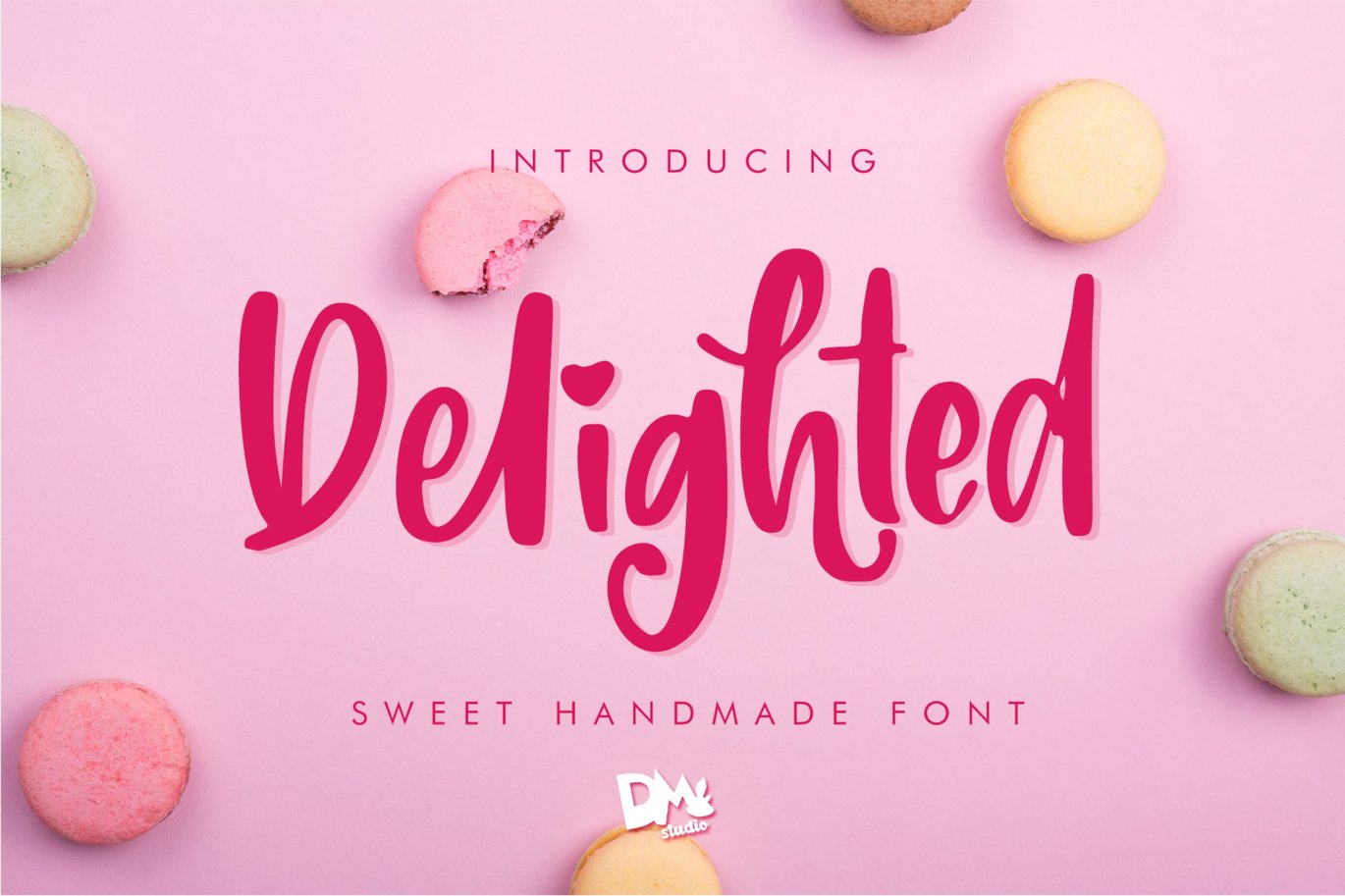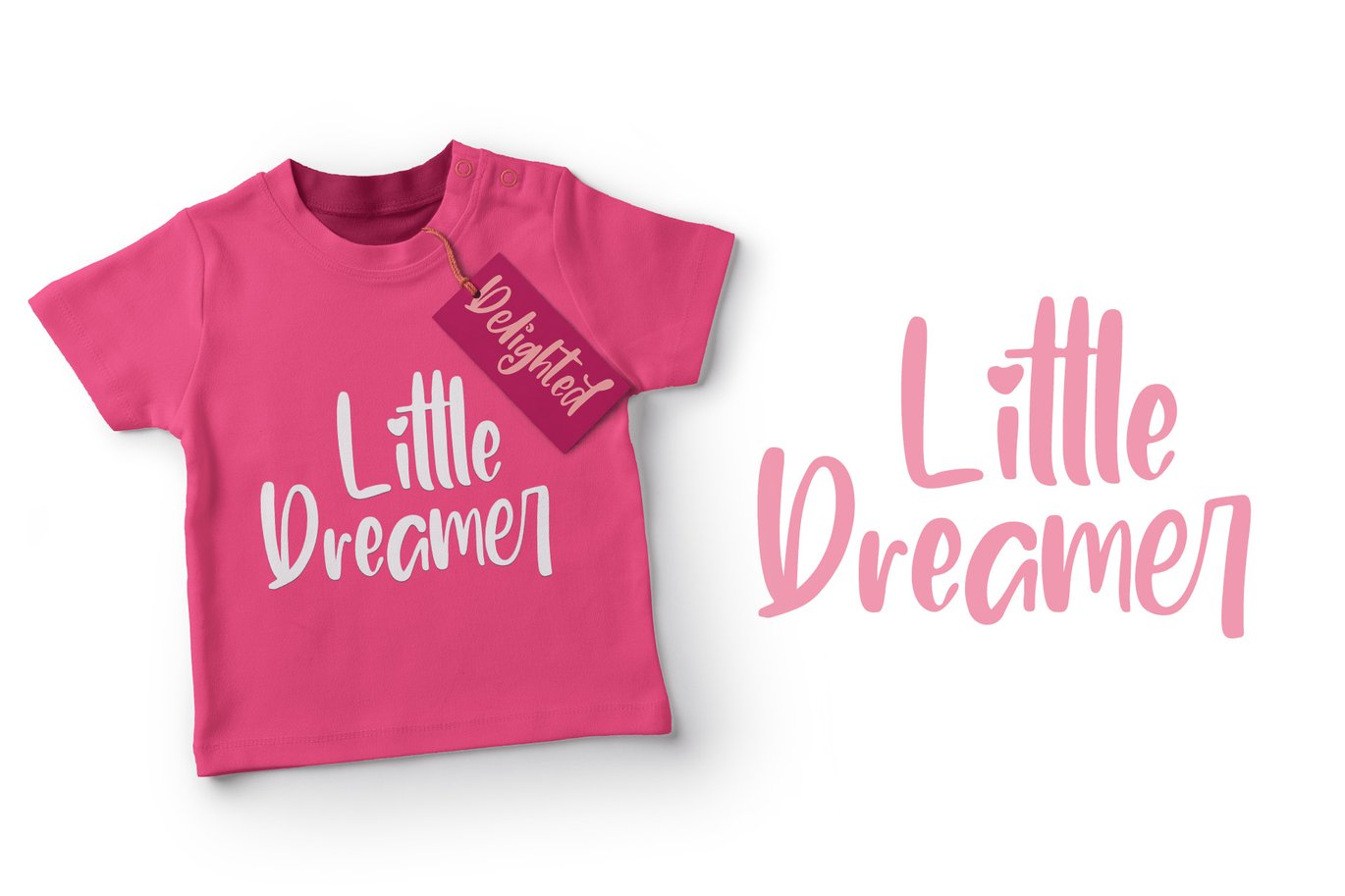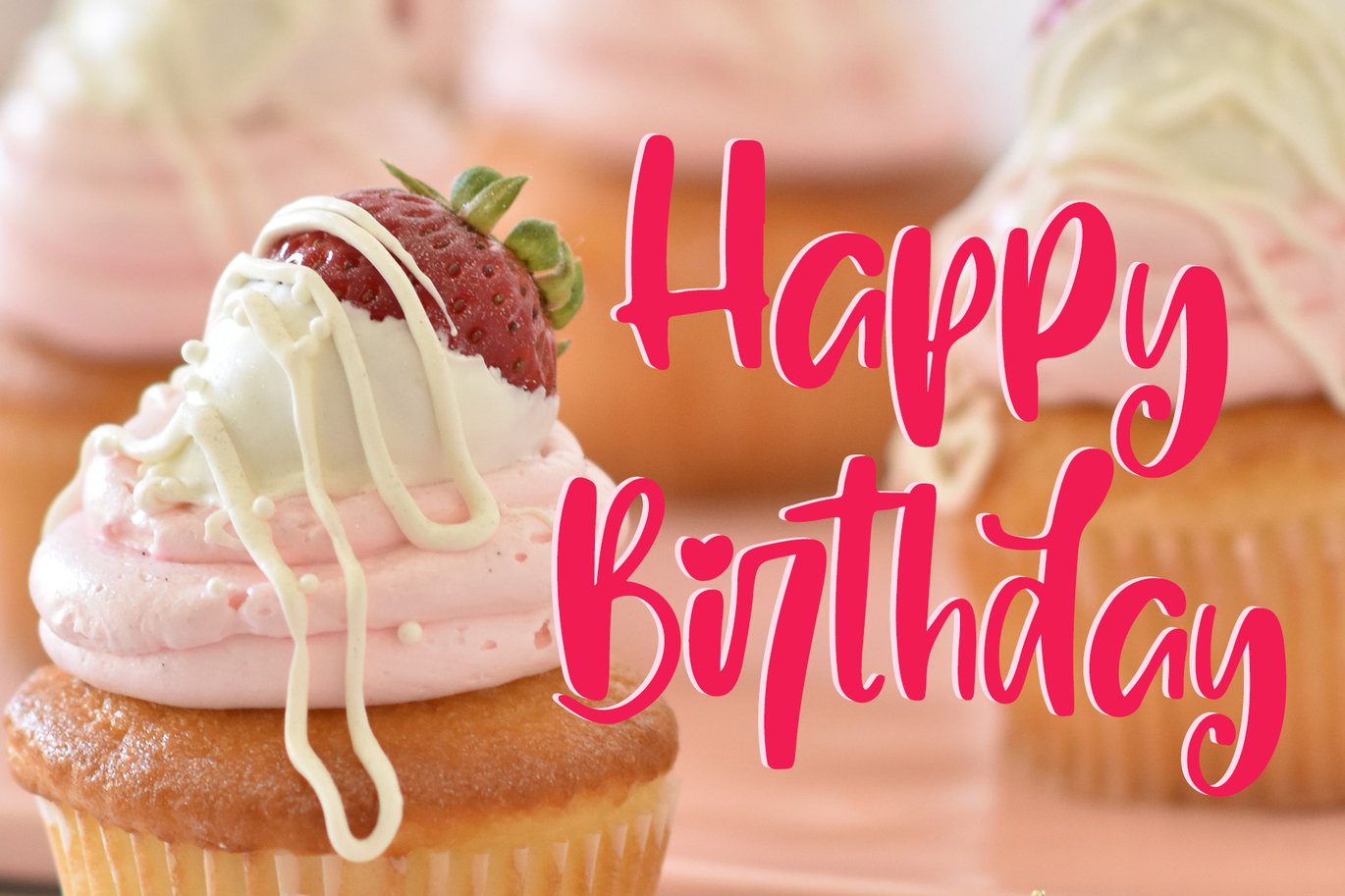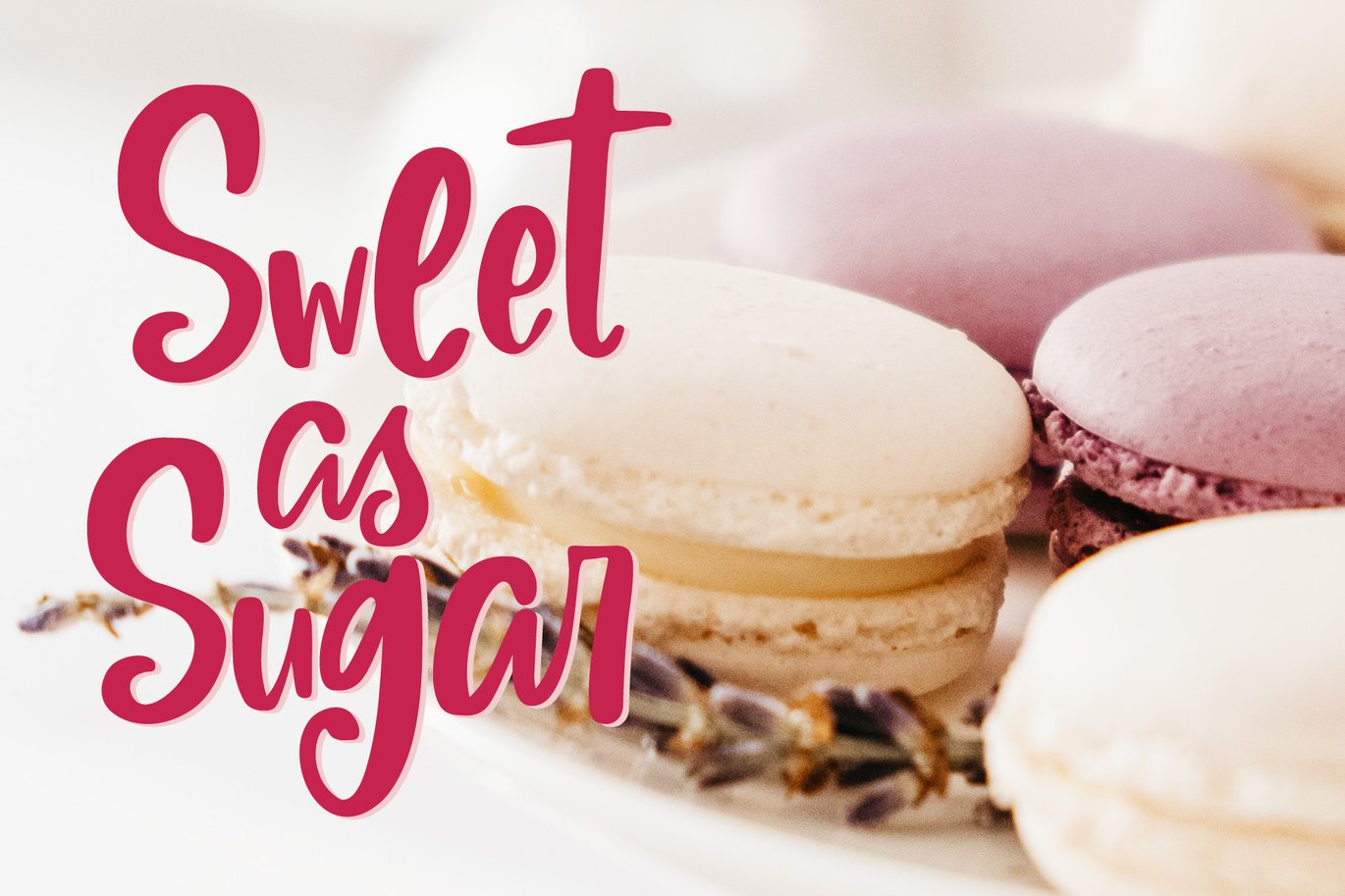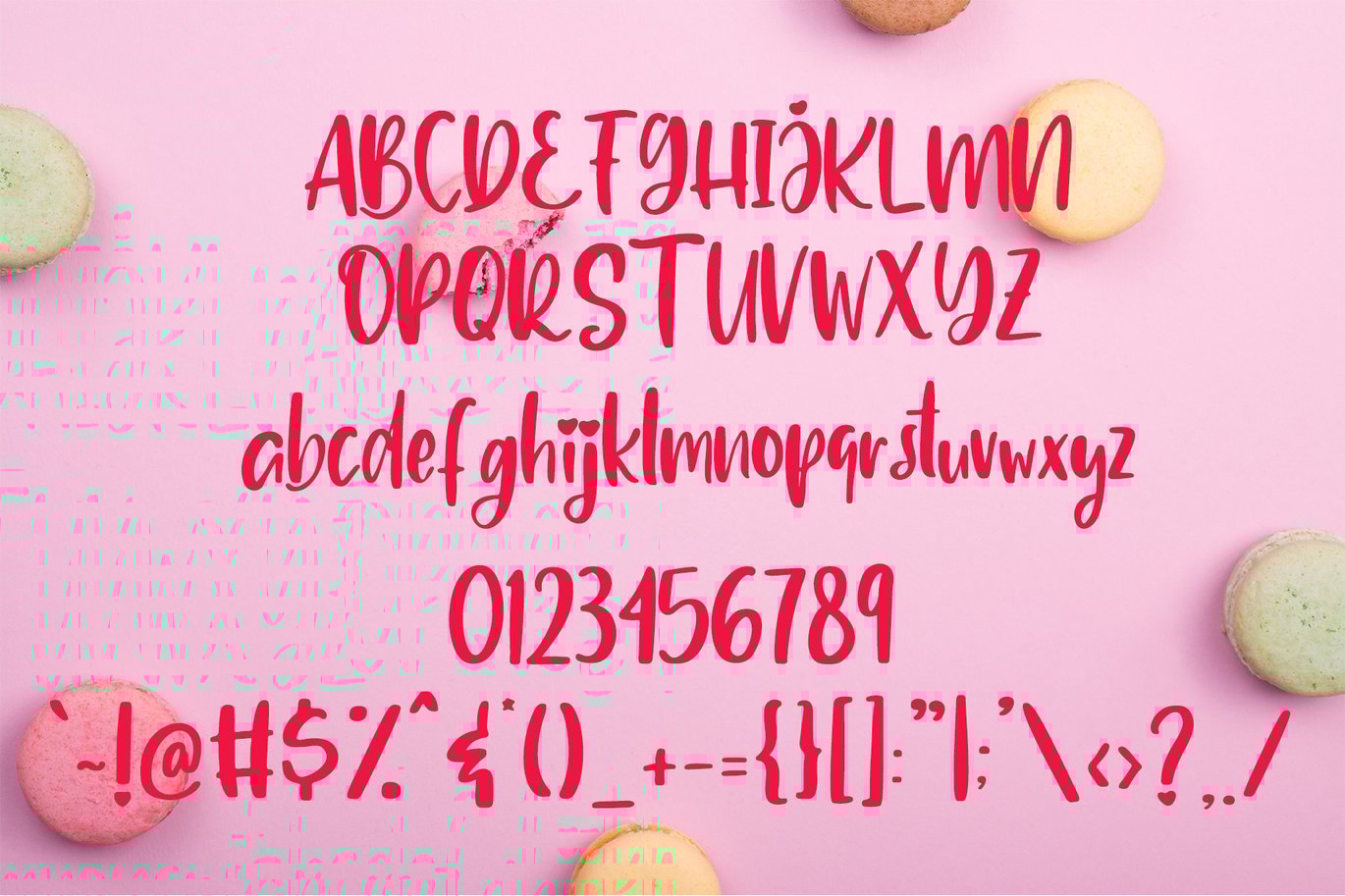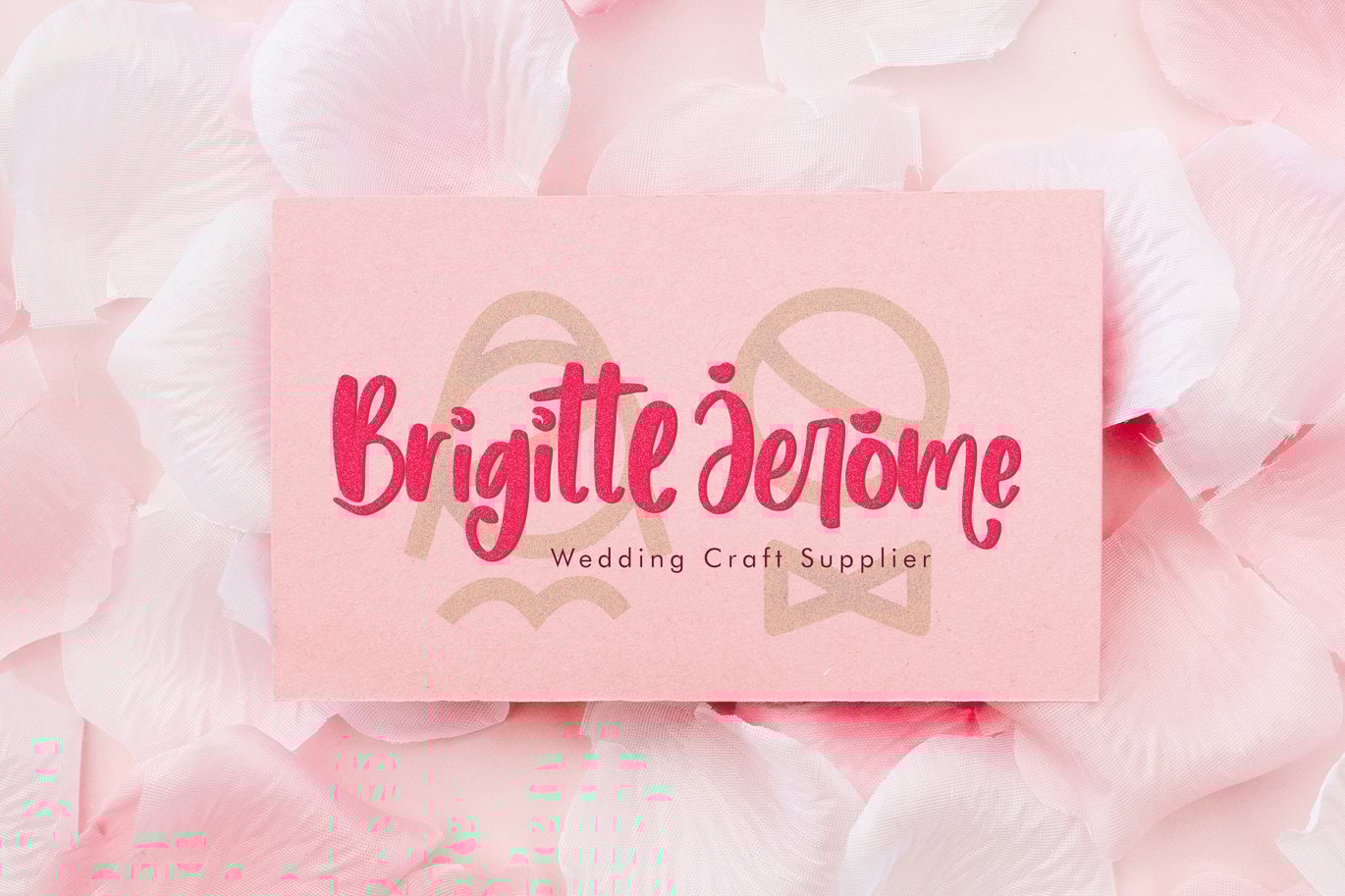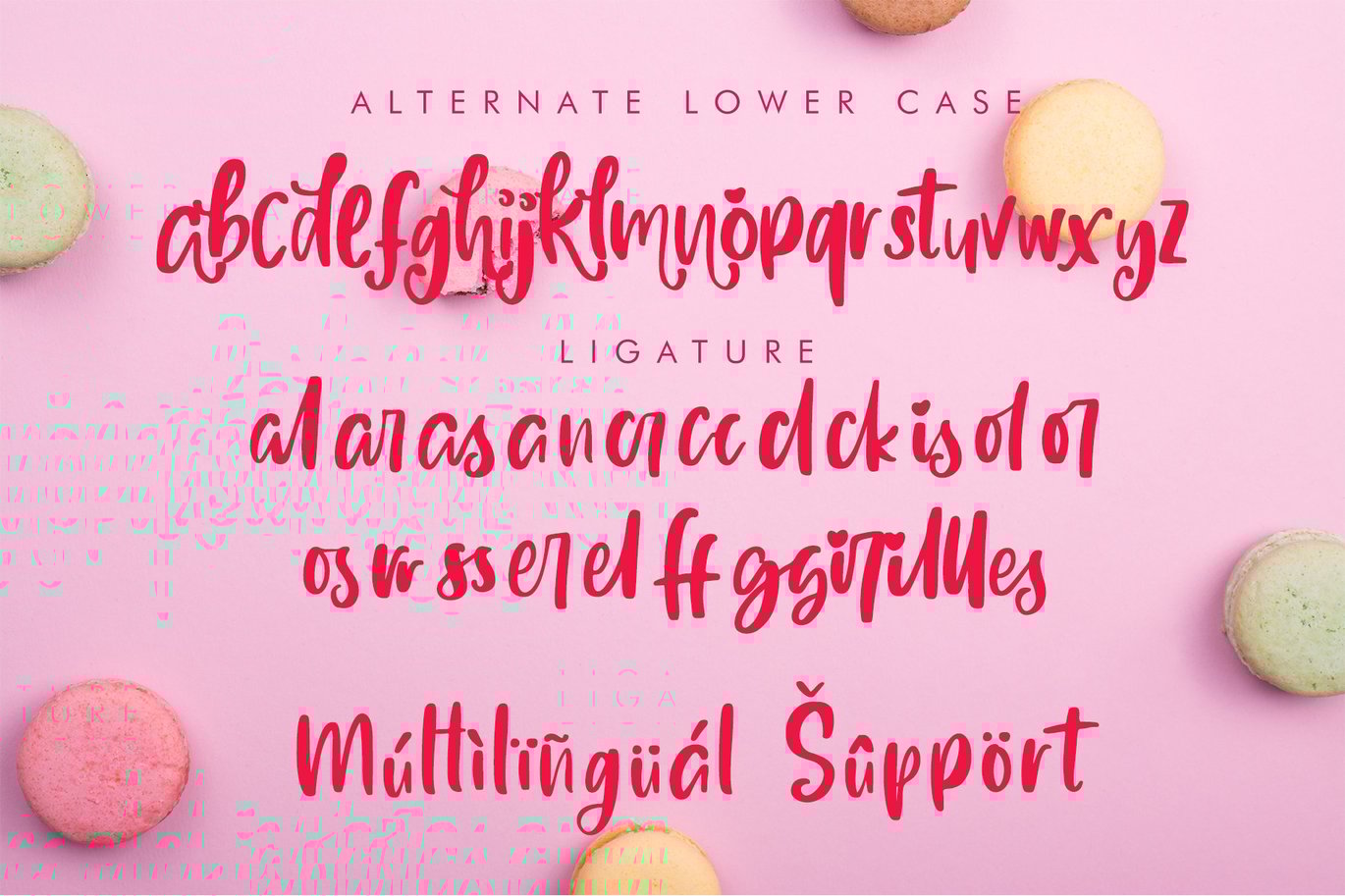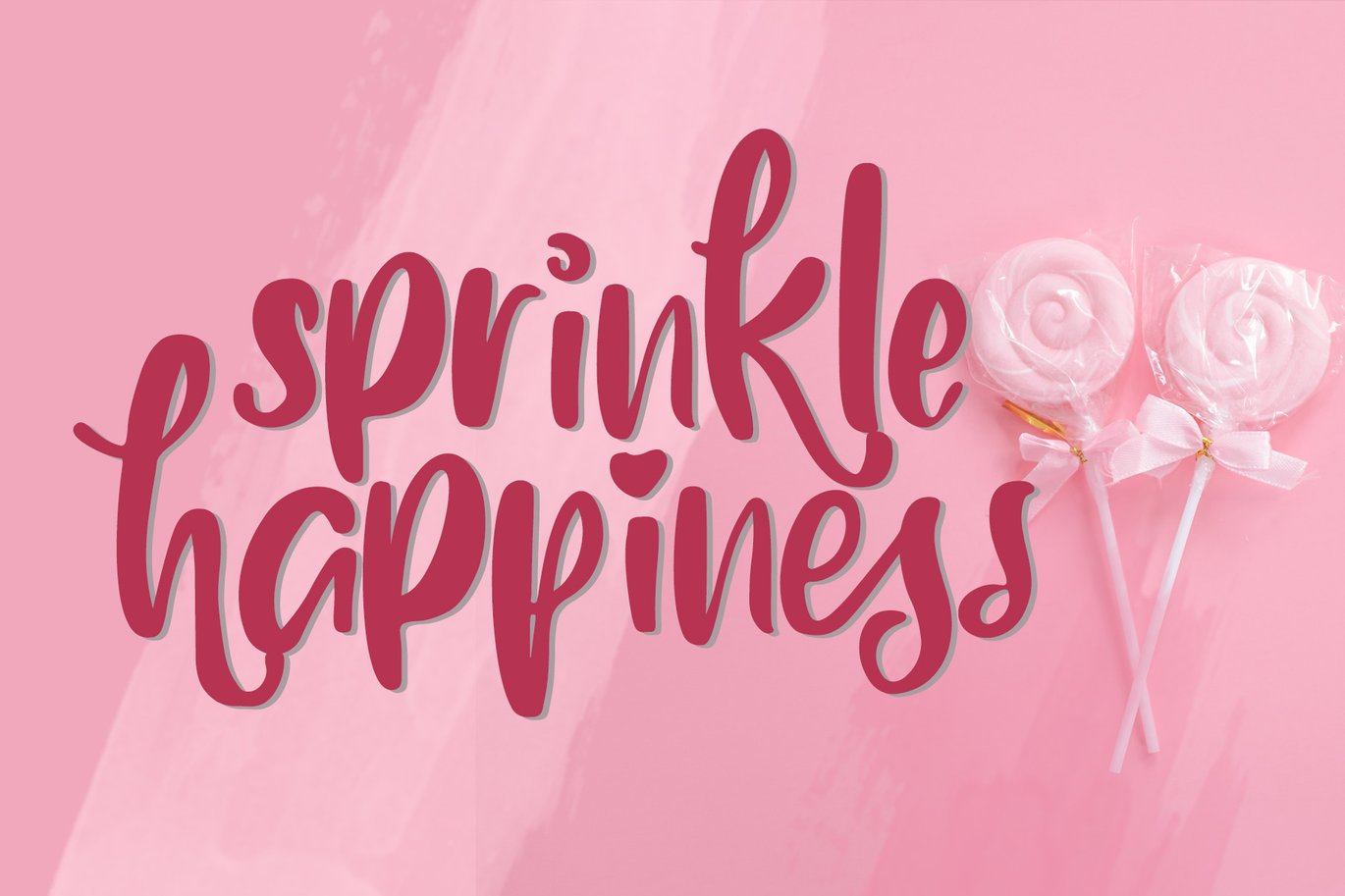
Delighted Sweet Handmade Font
Delighted – A Sweet Handmade Font
Introducing, the new handwritten series from us! It’s basically a
brush script font with a quirky but cute style!
Great for you who loves
making some crafting, like a birthday card, scrapbook, handlettered
quotes, stickers, printing or cutting project, and also great to applied
on your hangtag, business card, logo, products or some sort of
advertising stuffs like digital promotions, blogs, websites, videos,
etc. Just mix and match the collection of alternative glyphs and
ligatures to make your project more catchy!
Highlights :
-Contains Uppercase, lowercase, numeric and punctuations
-Comes with alternatives characters and ligatures
-Multilingual Support